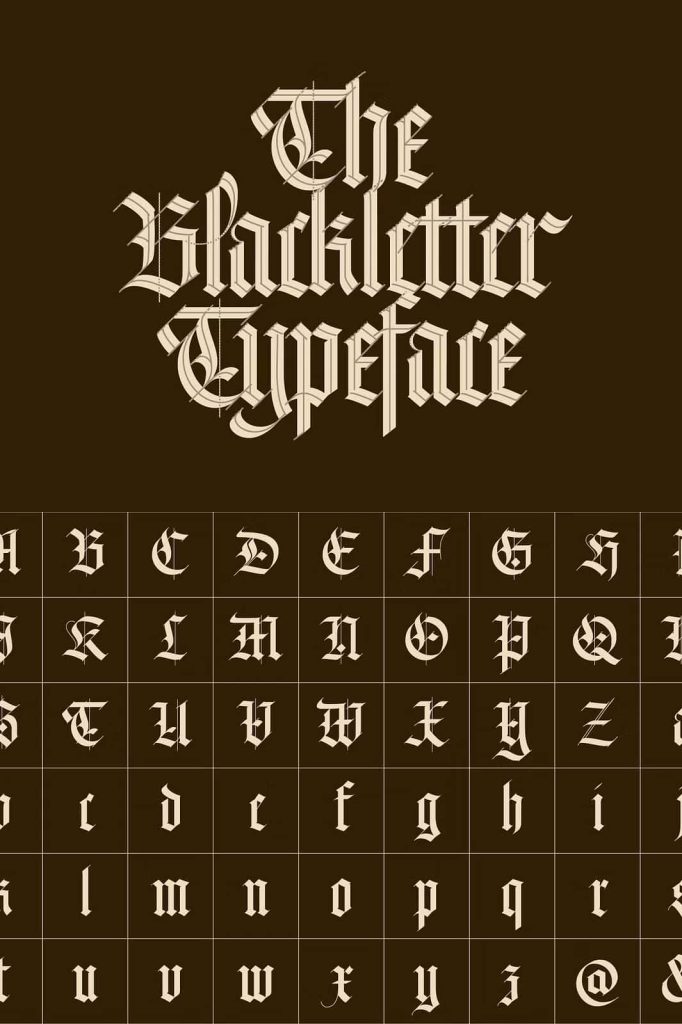
JA Gothic Textura FontleastedFebruary 7, 2025Fonts This blackletter typeface is a font I created as a tool to optimize the process of creating a calligraphic composition Download